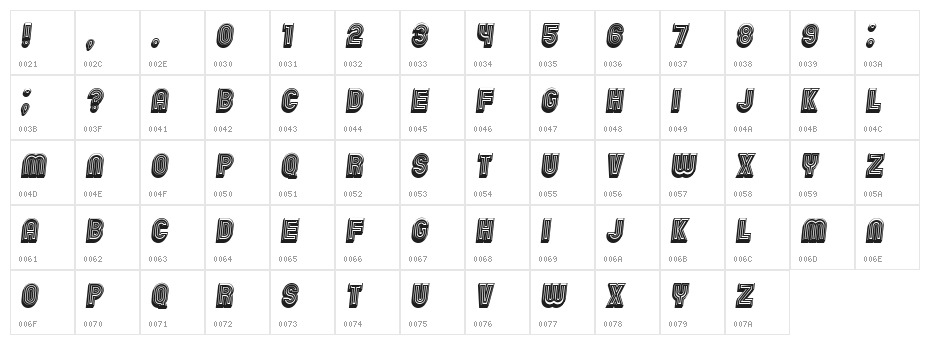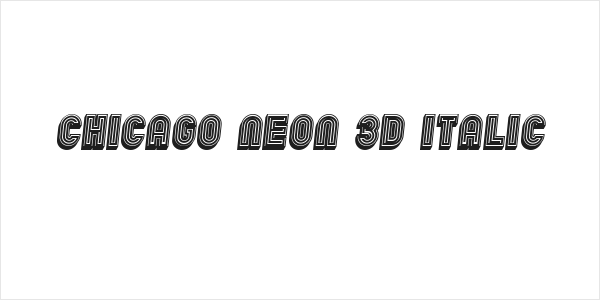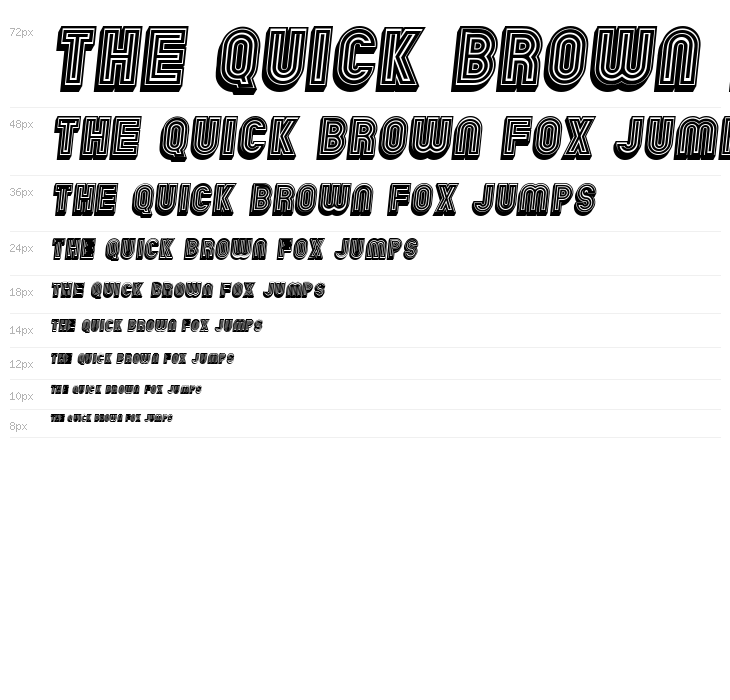
Chicago Neon 3D Italic Font
Chicago Neon 3D Italic Description
This font features a bold, three-dimensional design with a neon-like appearance. The letters are outlined with multiple layers, creating a striking 3D effect that gives the impression of depth and illumination. The italic slant adds a dynamic and modern touch, making it stand out in any design. The characters are well-defined with consistent spacing, ensuring readability while maintaining a decorative flair. The font's unique style is perfect for capturing attention and conveying a sense of energy and vibrancy.
| Proposed Projects | Ideal for neon signs, event posters, digital artwork, and branding that requires a vibrant and eye-catching typeface. |